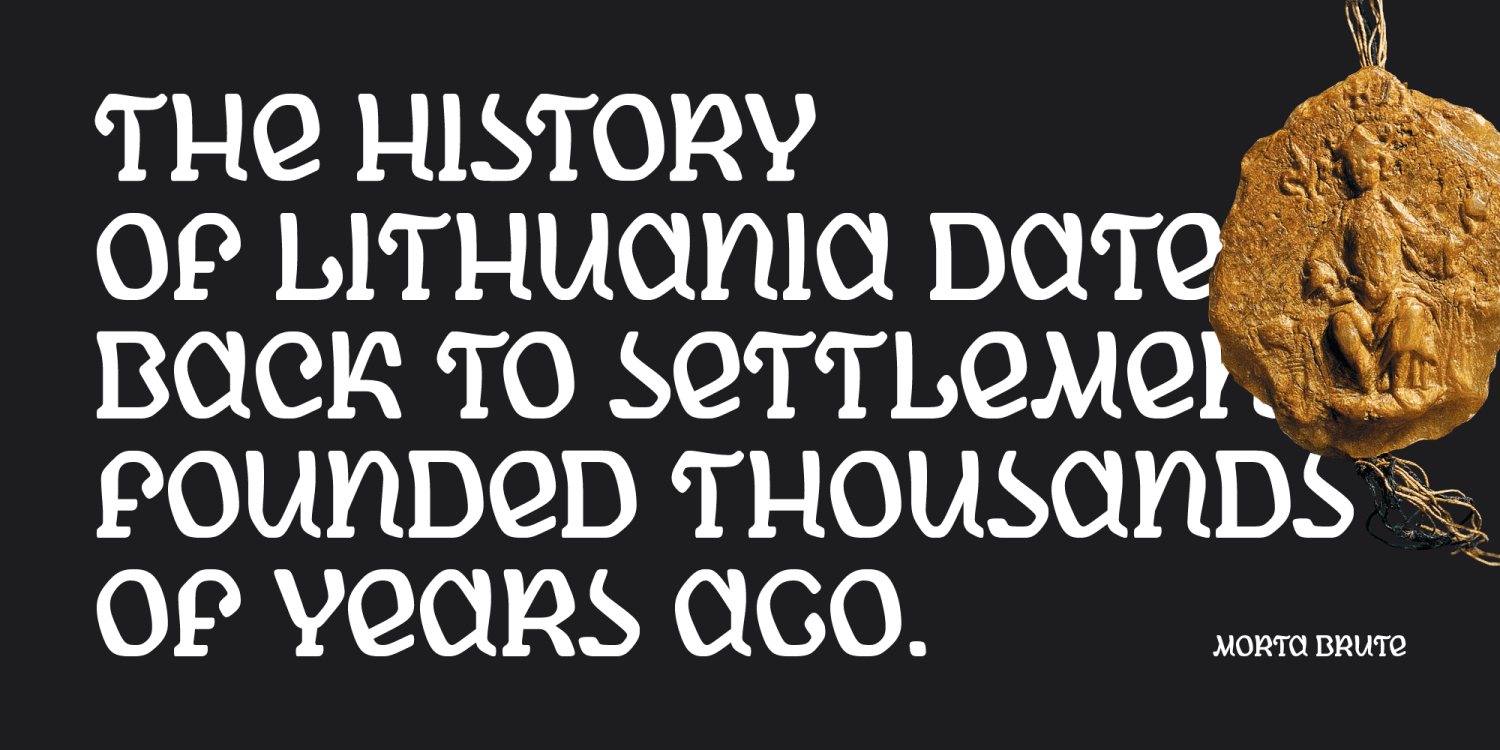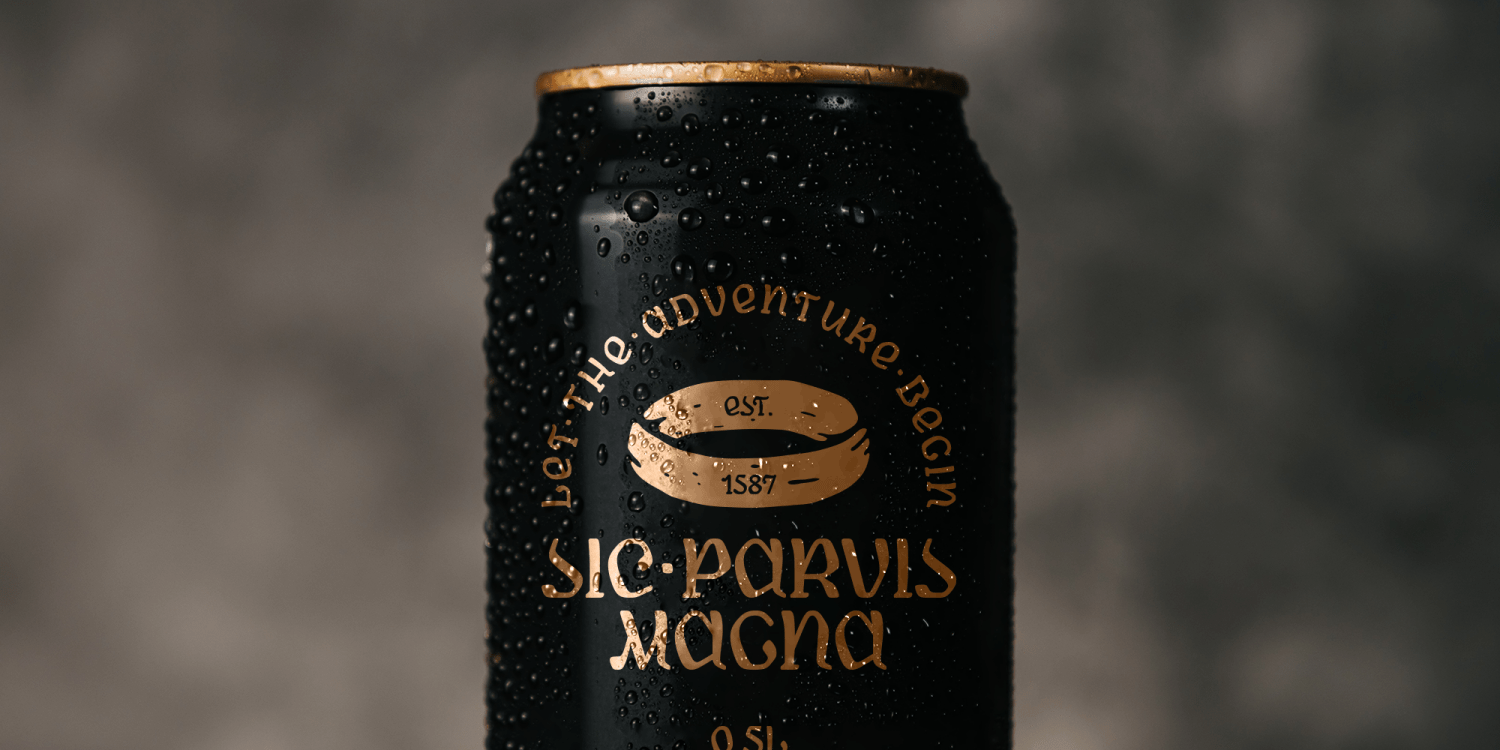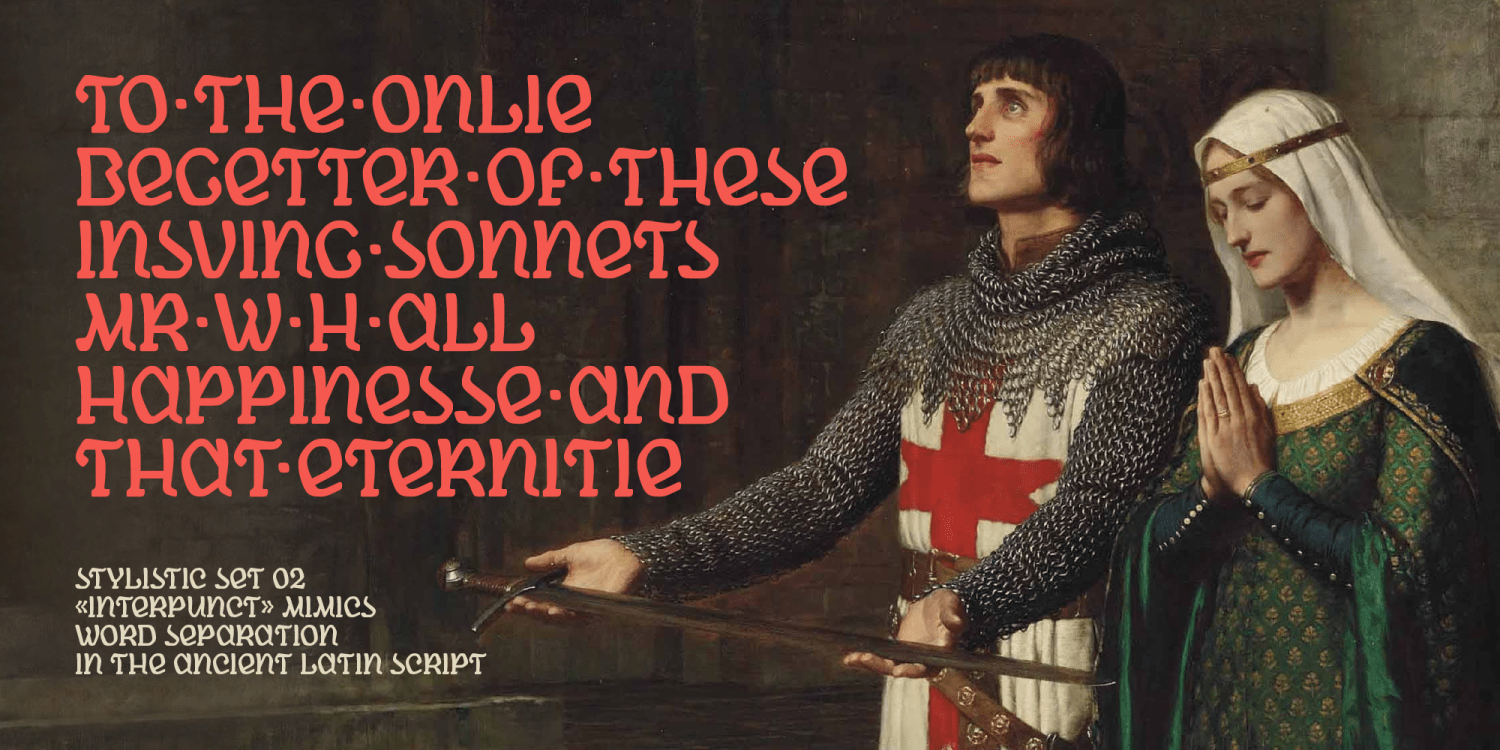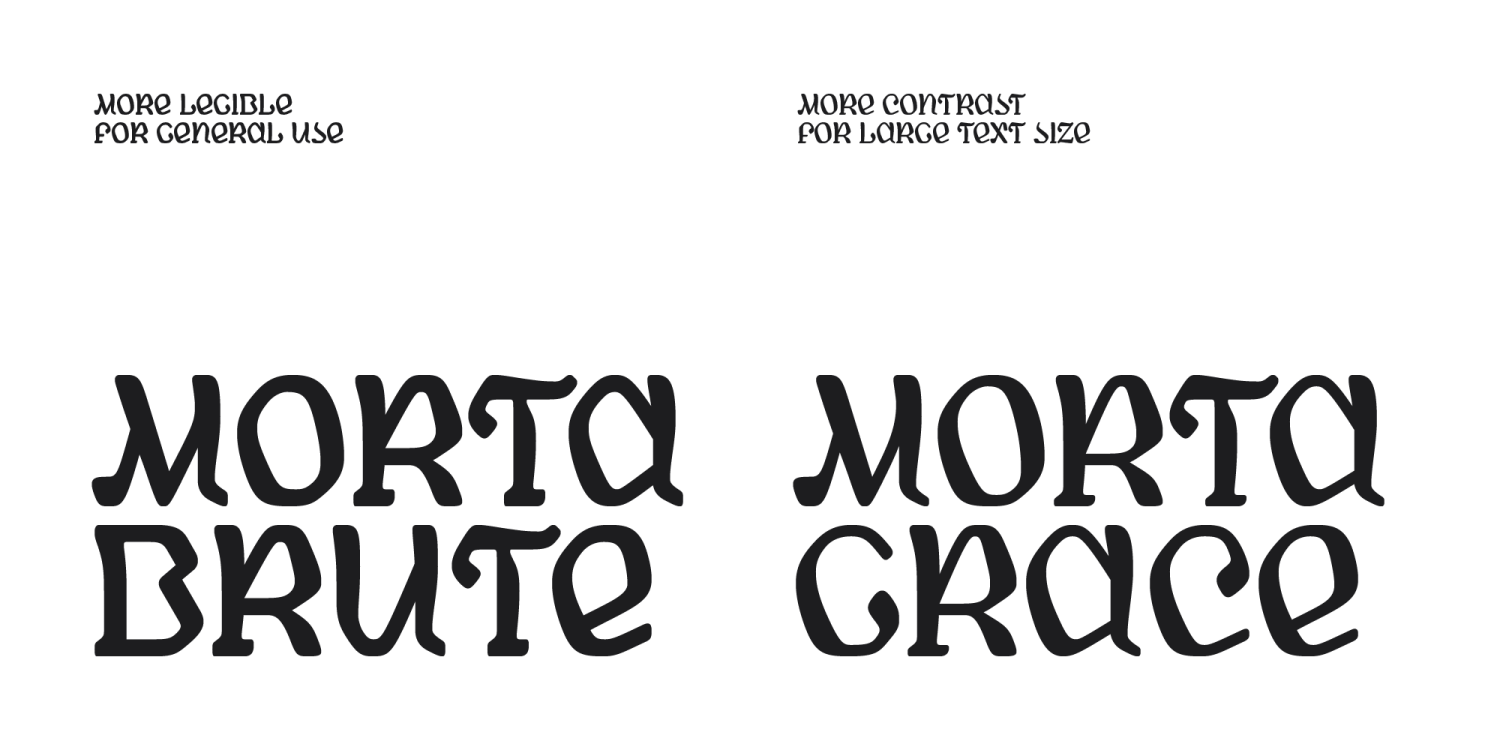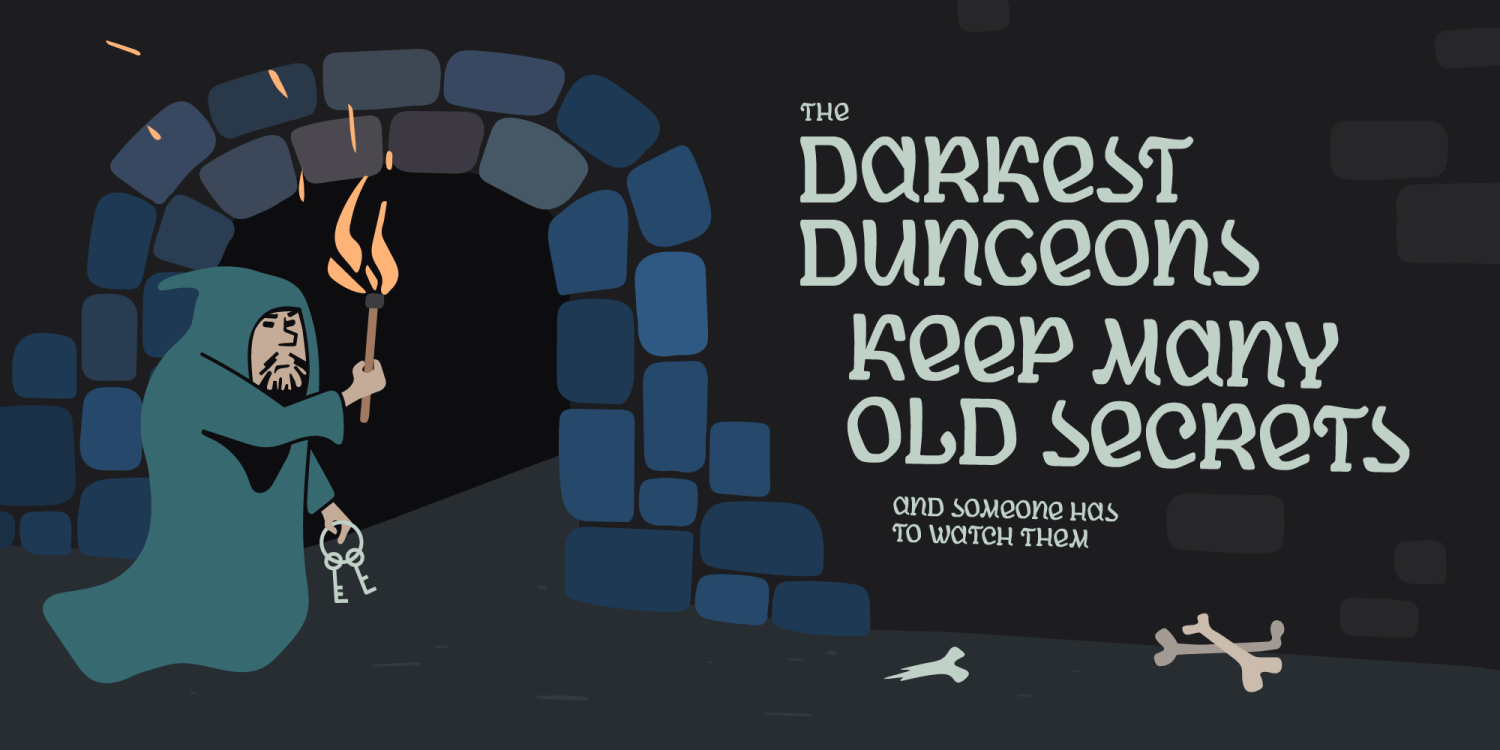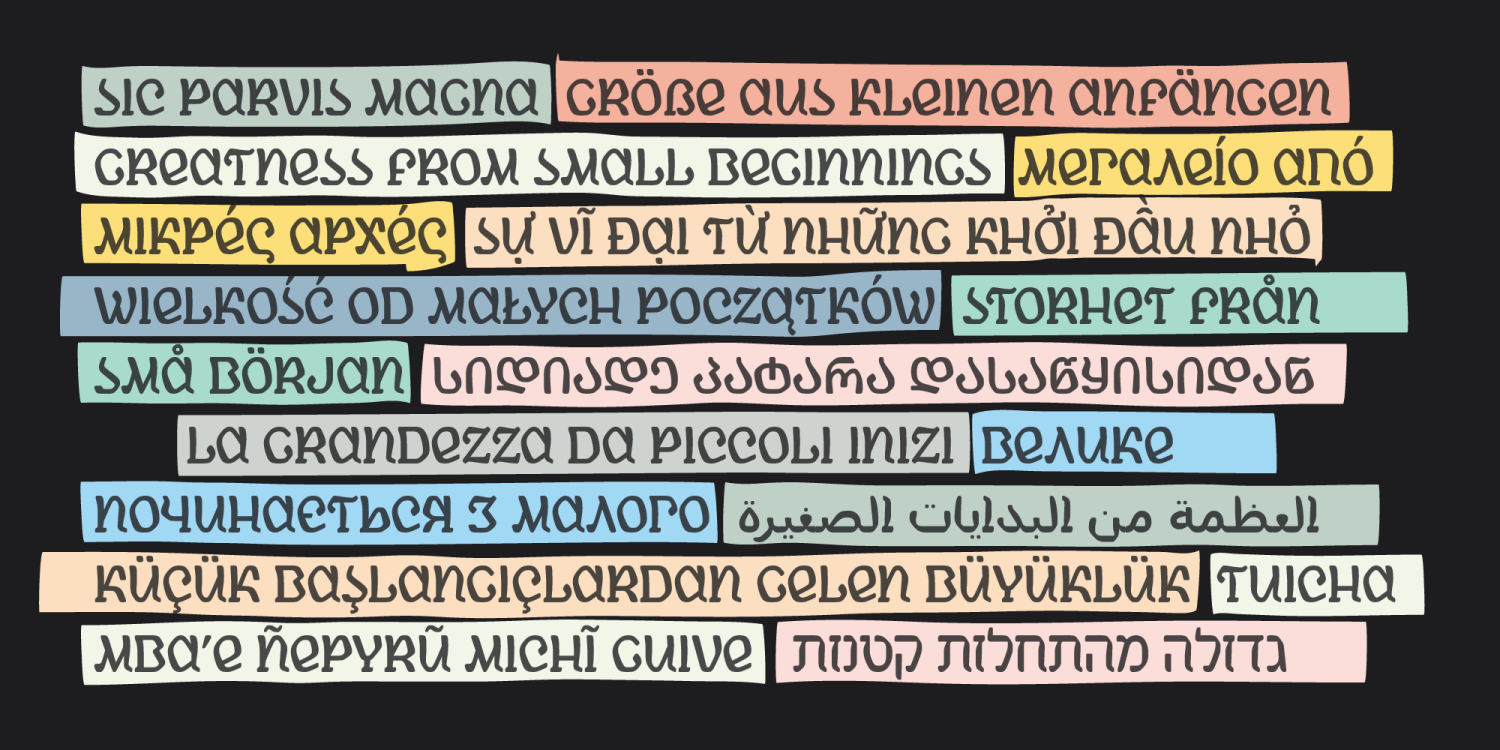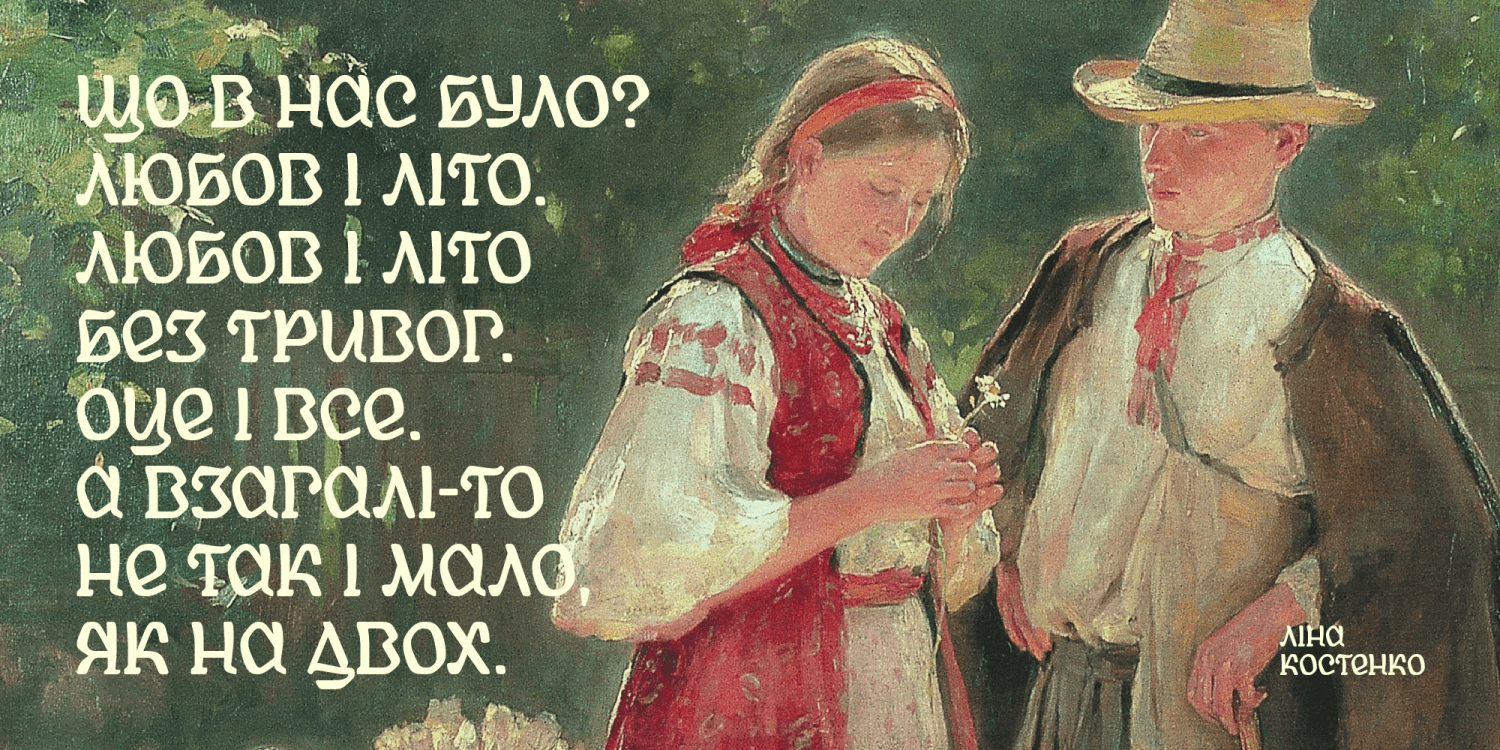
Morta
Font Family by Michael Rafailyk
Morta is a handwritten unicase typeface with a slight calligraphic influence. Its design, like a centuries-old cold dark stones, has carved edges and polished corners, and represented by two styles: more legible “Brute” for general use, and more contrast “Grace” for large text size.
Concept
While working on concept sketches, I synthesized such theses as historical and cartoon, mystical and attractive. What if I mirror the slant of an Italic writing in the other direction to create the feeling of looking from the other side, from behind the mirror? And if I use some calligraphic techniques and strokes? I worked to create a deliberately irregular shape with a minimal use of straight lines. At the same time, I avoided sharp corners in order to express the form chiseled by many centuries, like a stones polished by sea water. The typographic technique of Unicase (using the form of upper and lower case letters in a single universal size) helped to outline the concept in the best possible way, because it gives the text a feeling of ancient Latin writing, when only capital letters were used. For the same reason, the font received the stylistic set “Interpunct”, which separates words with a middle dot instead of a space. The Morta font is all about journey and unknown, so let the adventure begin!
Scripts supported: Latin, Greek, Cyrillic, Georgian, Arabic, Hebrew